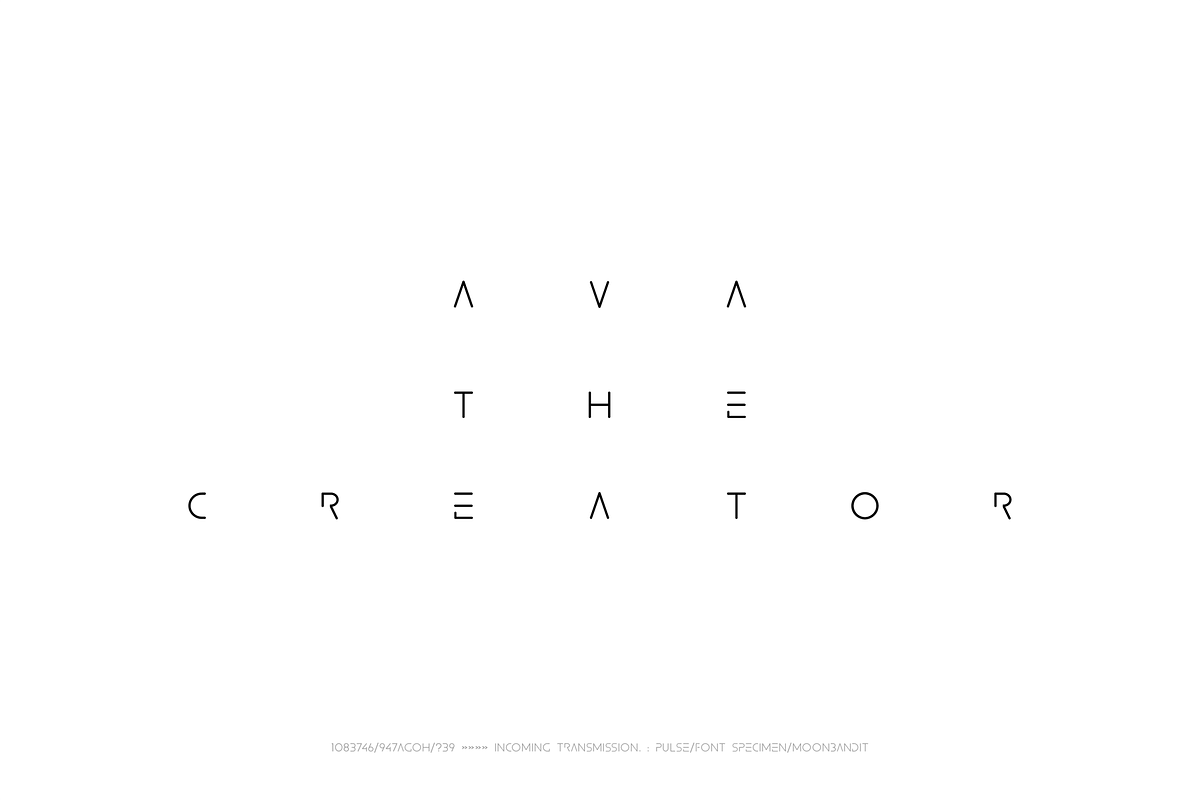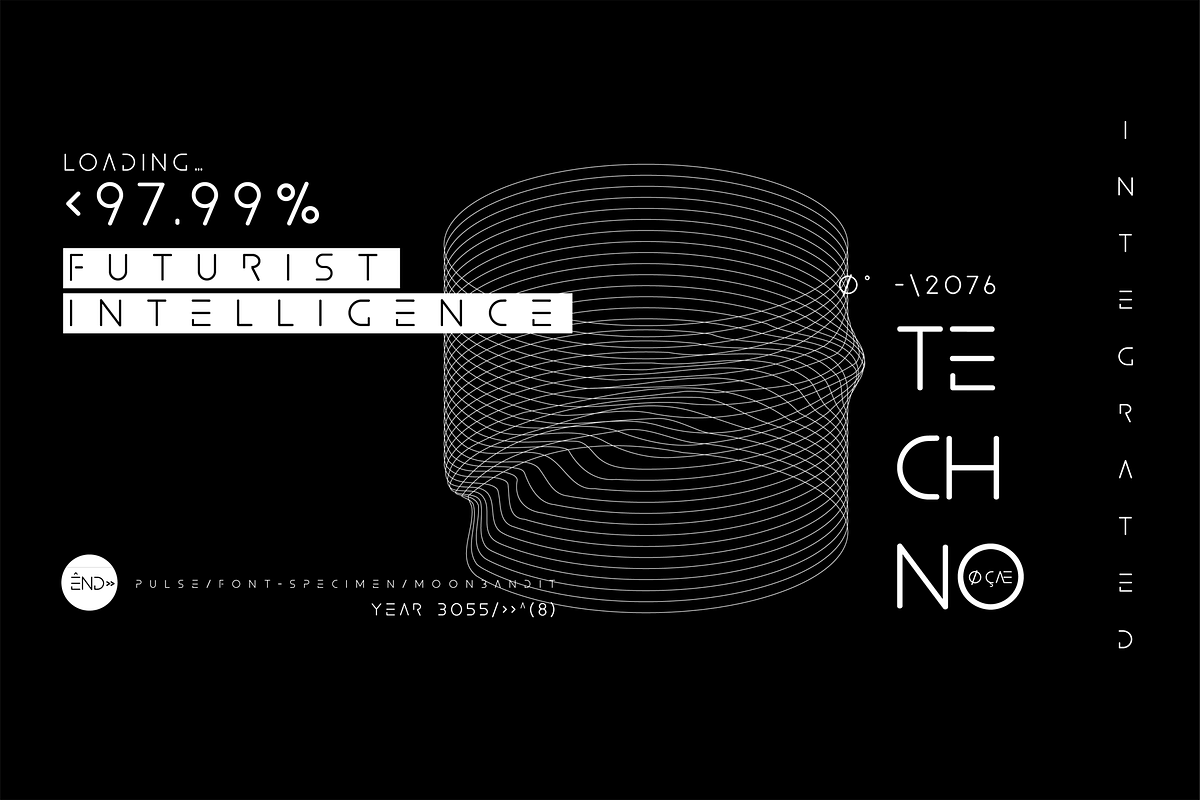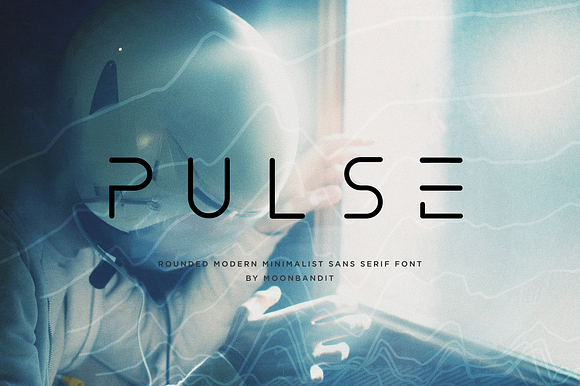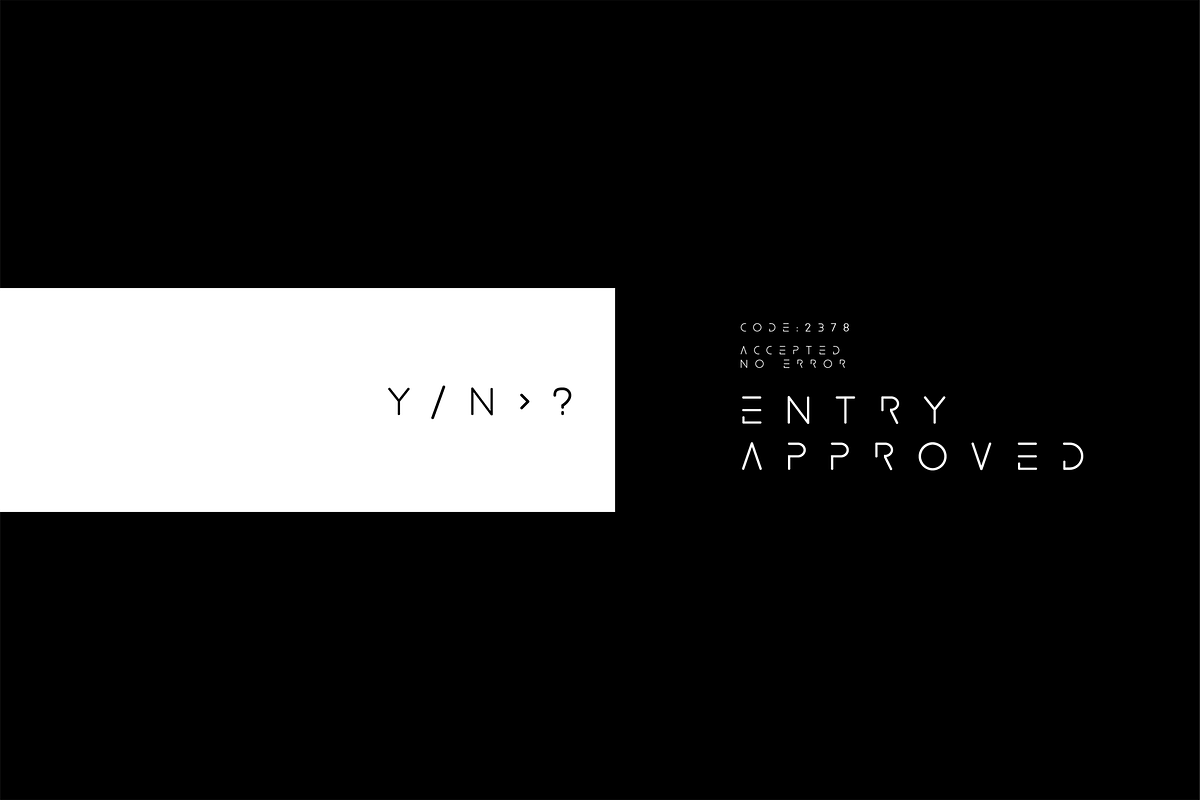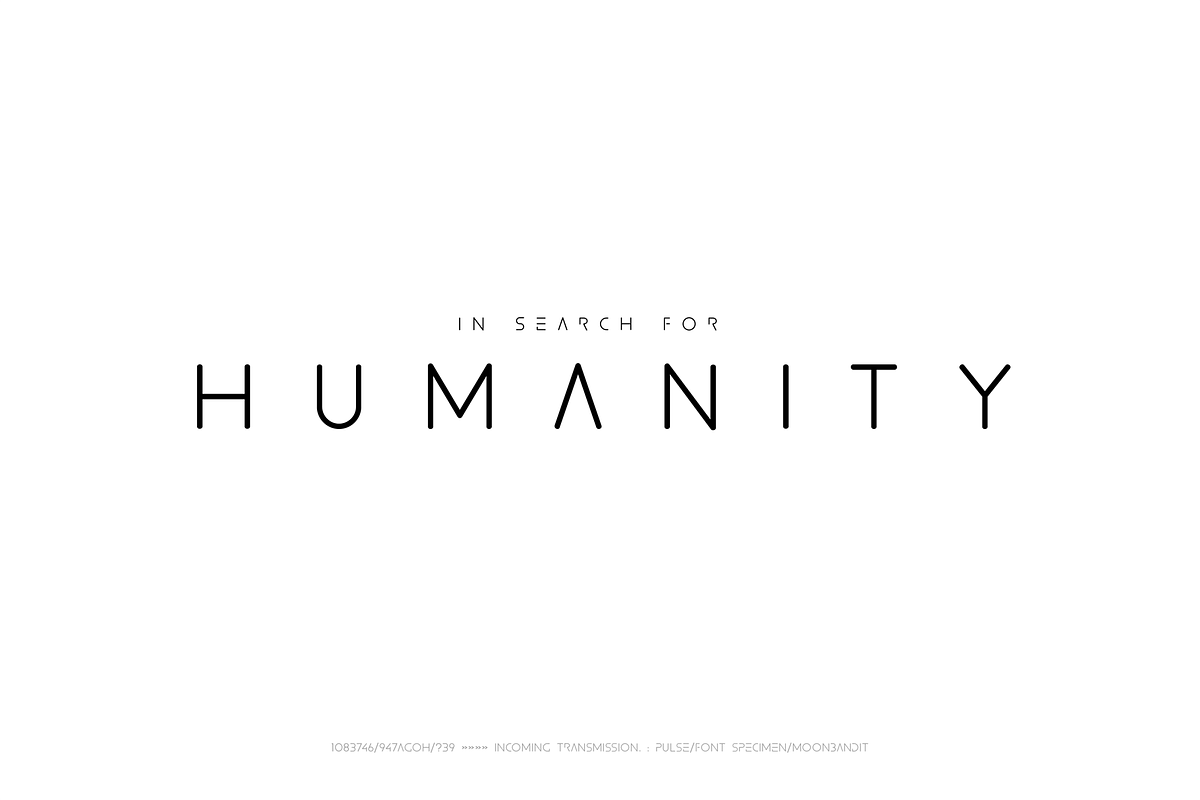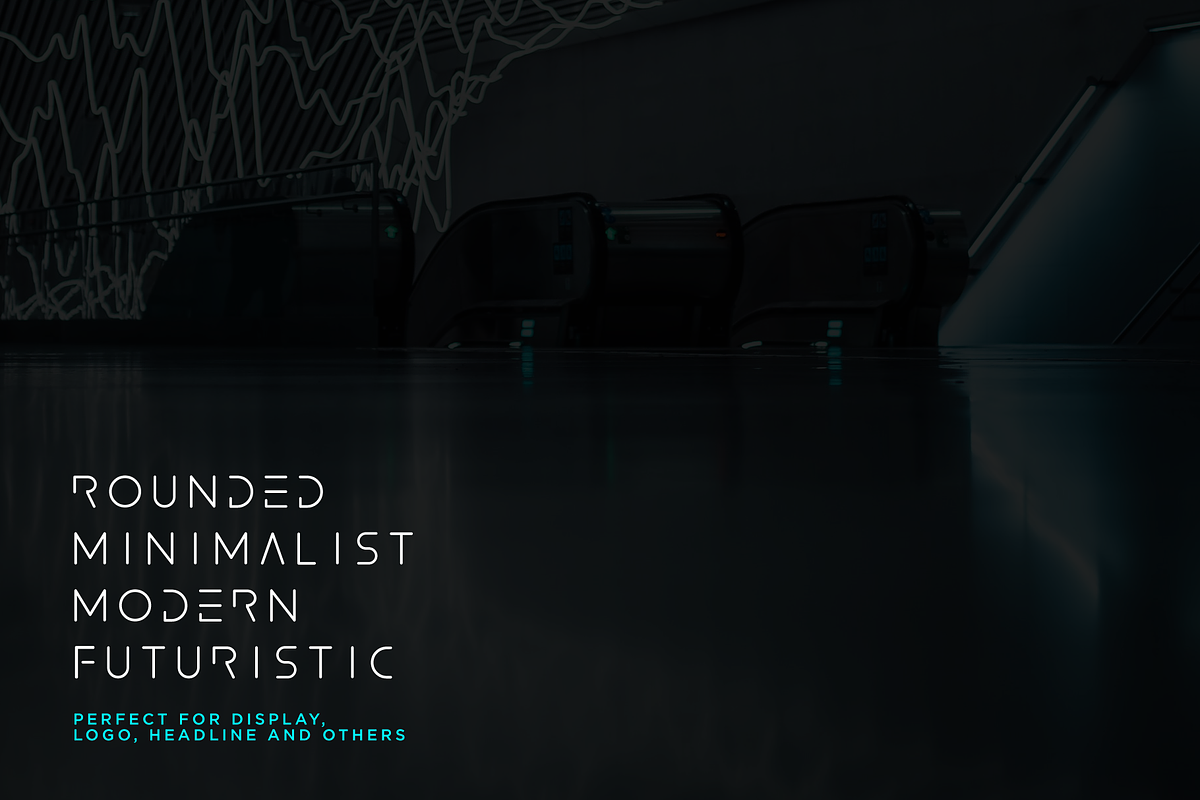
PULSE - modern scifi rounded font
A modern scifi sans serif font with vector file
a font with a futuristic edge, modern minimalist style, rounded corners, perfect for technology, scifi, or EDM theme
Why PULSE - modern scifi rounded font is worth a look
PULSE - modern scifi rounded font by MoonBandit fits naturally into Branding, posters, packaging, typography.